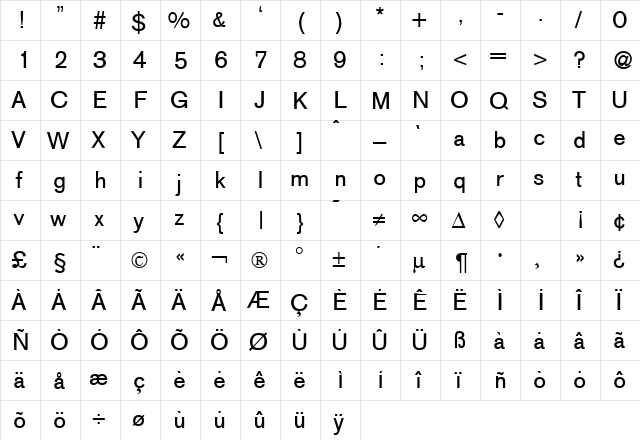
AkzentOldface Regular
Design Context for AkzentOldface Typeface
AkzentOldface offers clean, dependable letterforms without strong stylistic allegiance, making it a practical choice for designers who need flexibility.